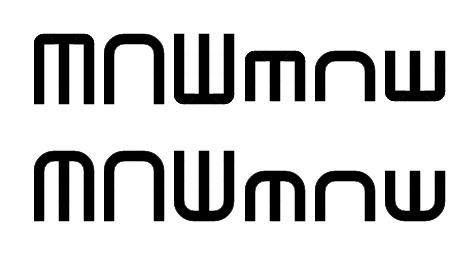
@typographish - I really like the curves on this design, but for M W m w, they seem a bit too sharp and not keeping in line with the other glyphs.  How about something like these?...